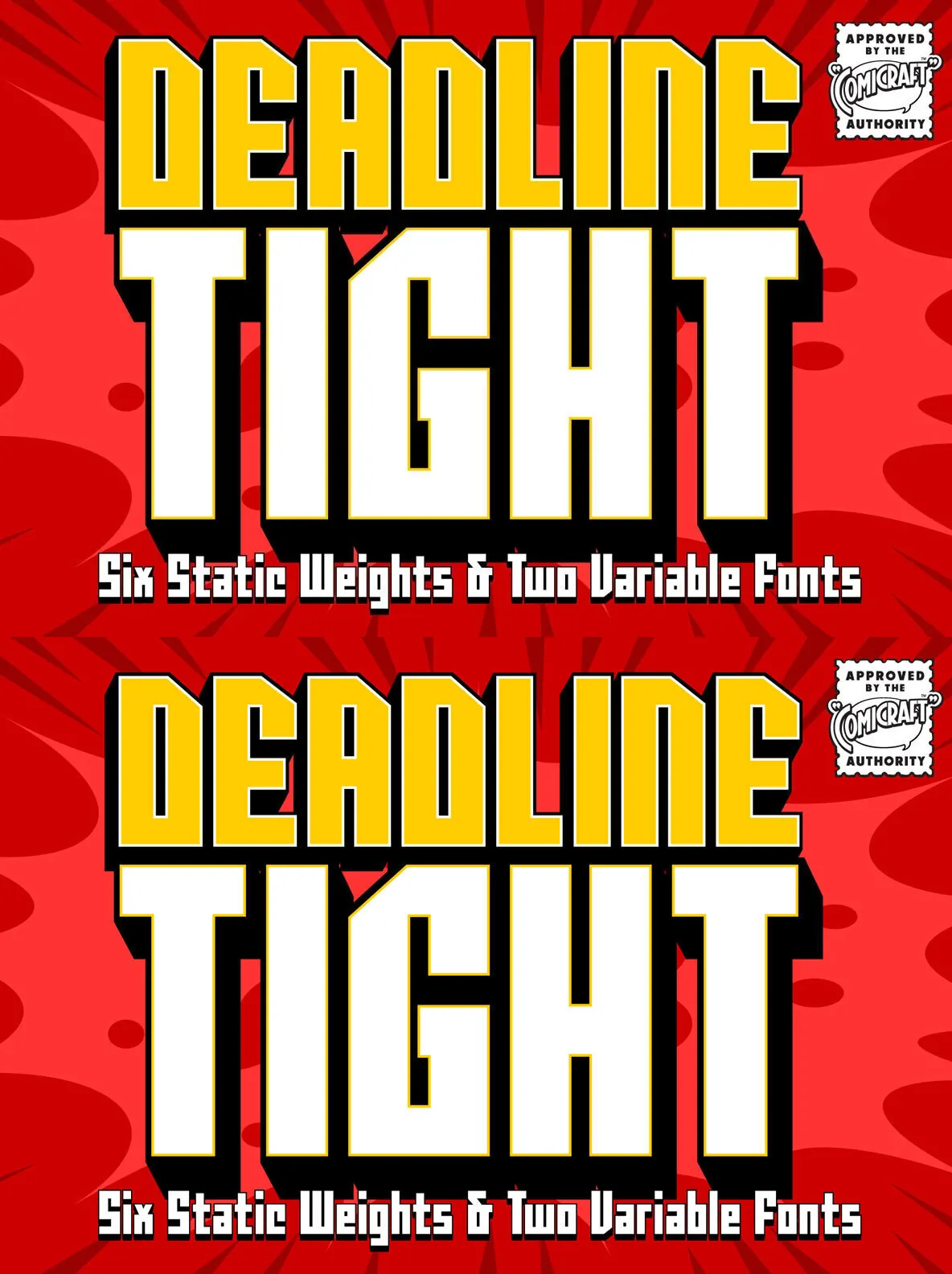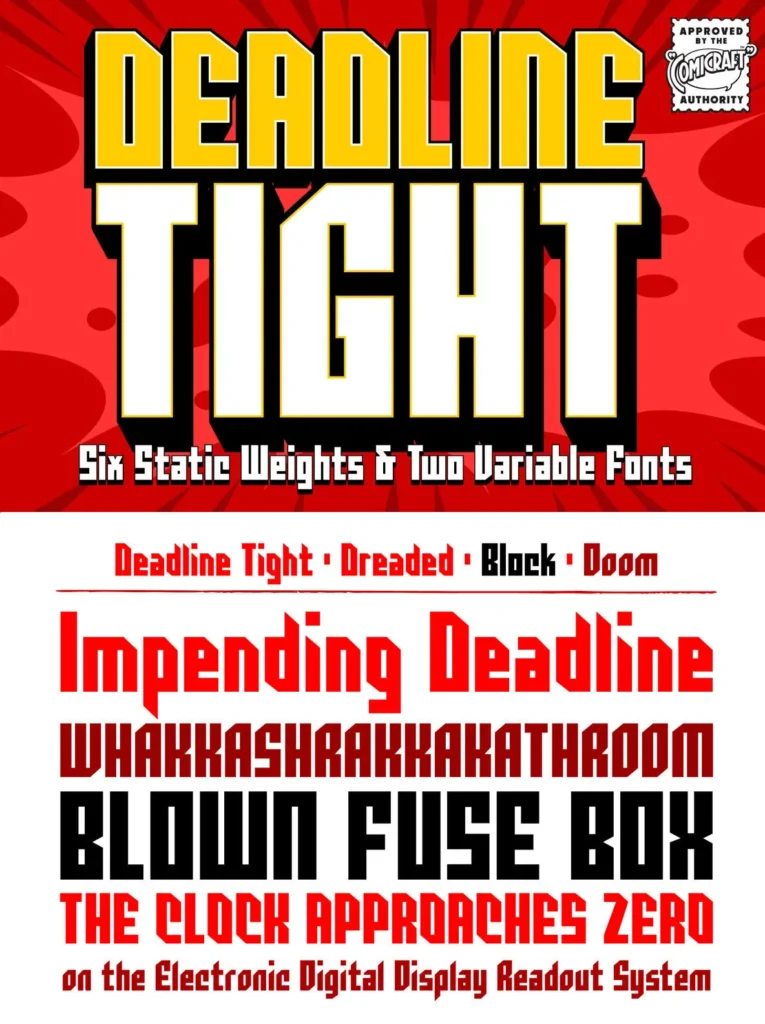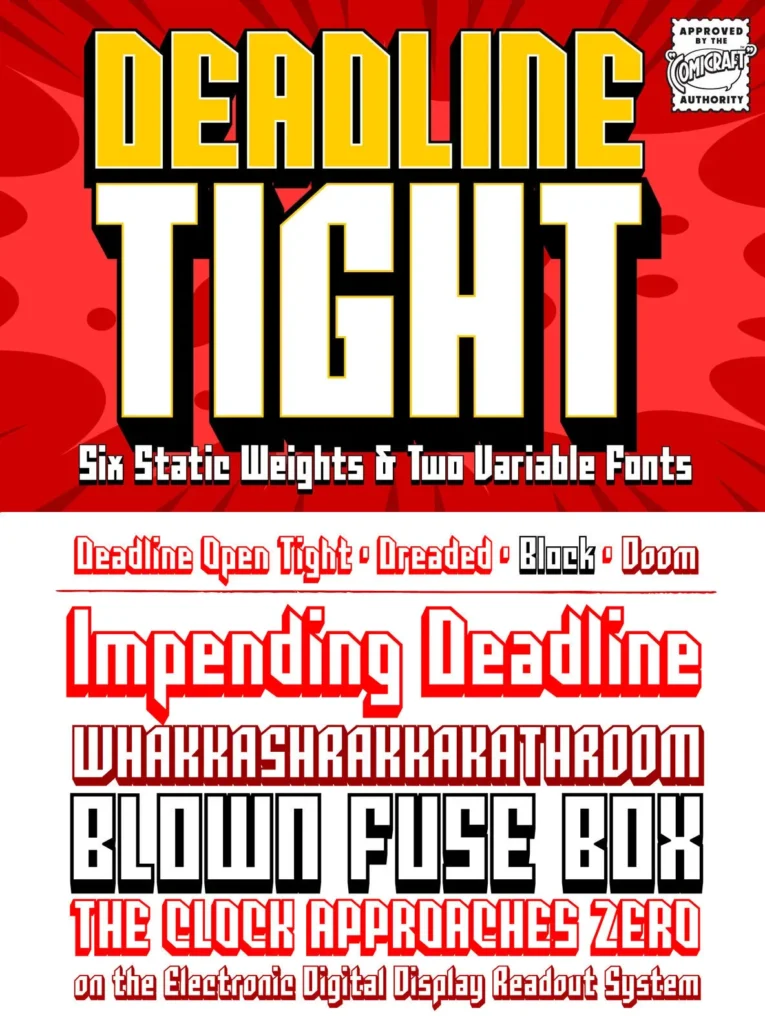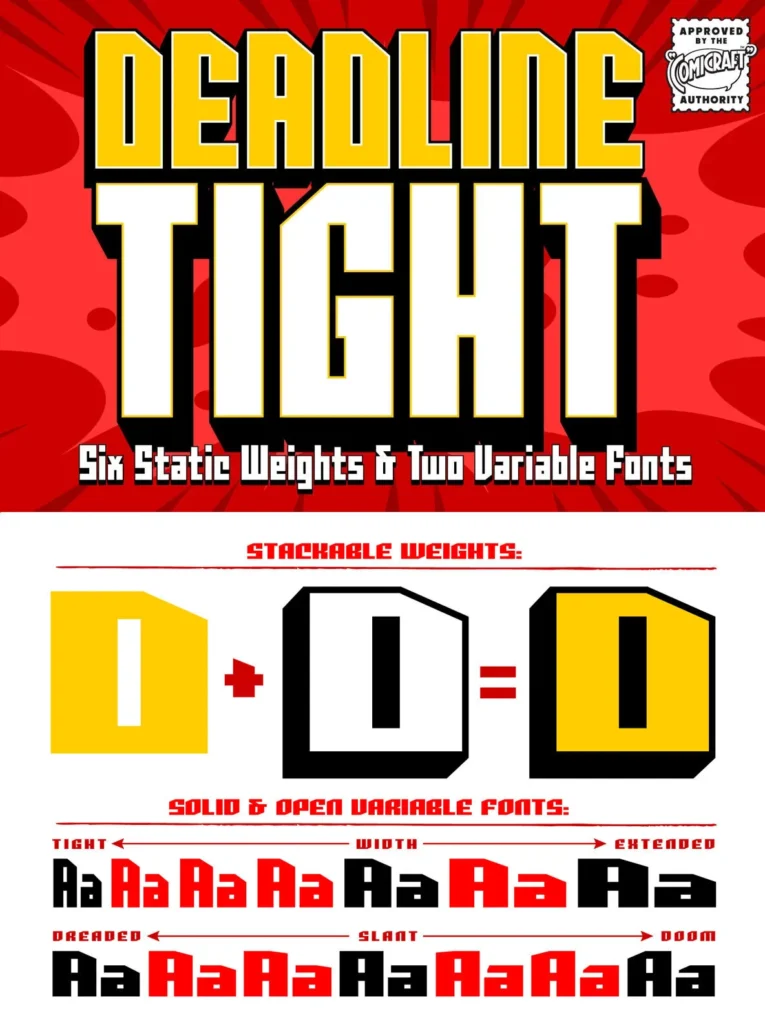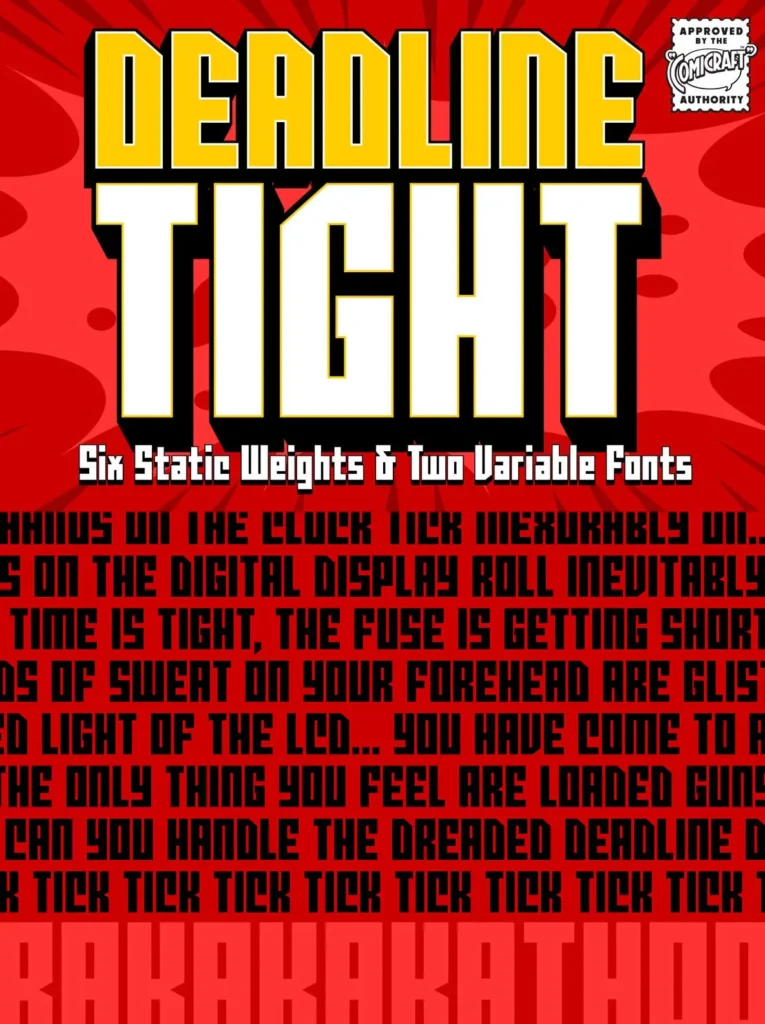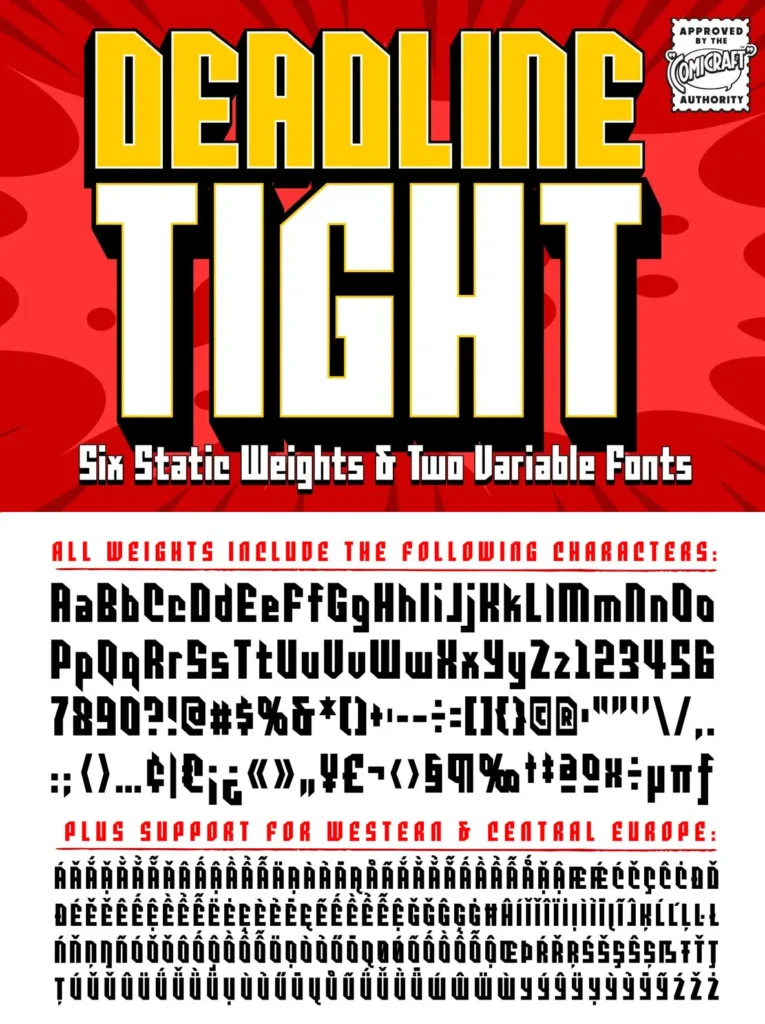
Deadline Tight Font
Deadline Tight — High-tension display for comics
The clock hands tick. The digital counter rolls toward zero. The pressure builds fast, and the page needs type that can keep up. This Comicraft design brings a charged, deadline-driven voice to covers, sound effects, captions, and high-impact display work where urgency matters.
Deadline Tight features six static weights, including the new nearly square Block, each with complete Western & Central European language support. Use the Solid & Open Variable fonts to access unlimited width and angle options—ideal when you need to dial in the right squeeze, slant, and intensity without switching families.
Six static weights, including the new nearly square Block
Solid & Open Variable fonts for unlimited width and angle options
Complete Western & Central European language support